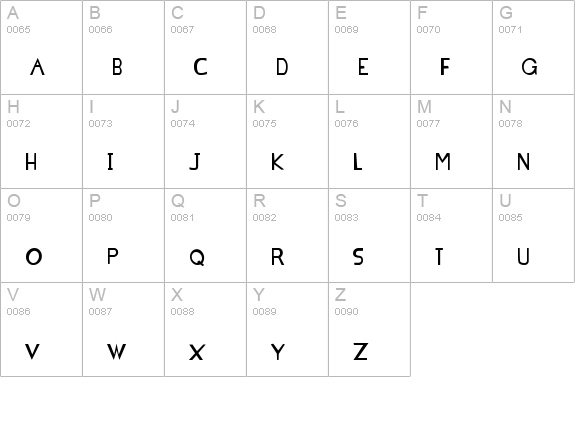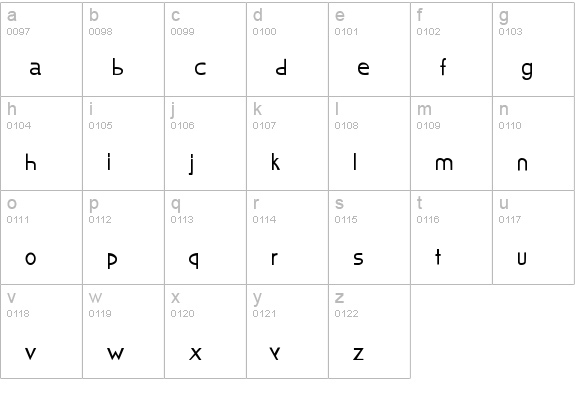
chocolat_bleu Font Details
Chocolat_bleu font is a delightful and elegant typeface that exudes a sense of sophistication and charm. With its smooth curves and stylish design, this font is perfect for adding a touch of class to any project. Whether you're creating invitations, branding materials, or social media graphics, Chocolat_bleu font will surely make your text stand out. The best part? Chocolat_bleu font is completely free to download at FontsMarket.com. That's right, you can get your hands on this beautiful font without spending a penny. So why wait? Add a touch of elegance to your designs today with Chocolat_bleu font.